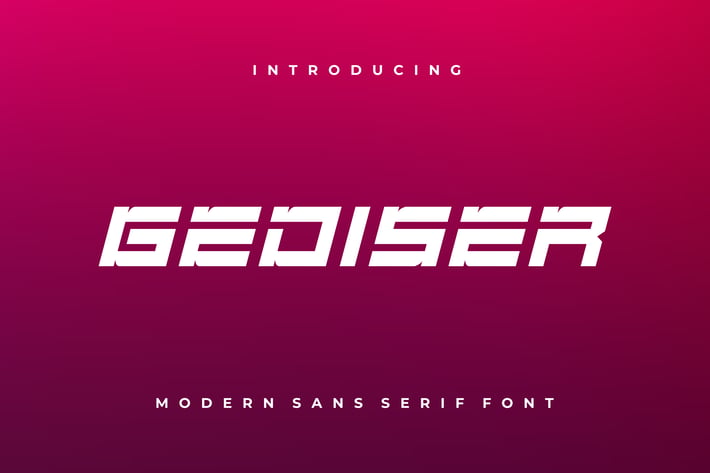
Gediser Font
Introducing our new product Gediser Font - Modern Font
Gediser Font - Modern Font is a bold and authentic display font. The font is suitable for any branding project like logo, esport, and many more. outstanding in a wide range of contexts.